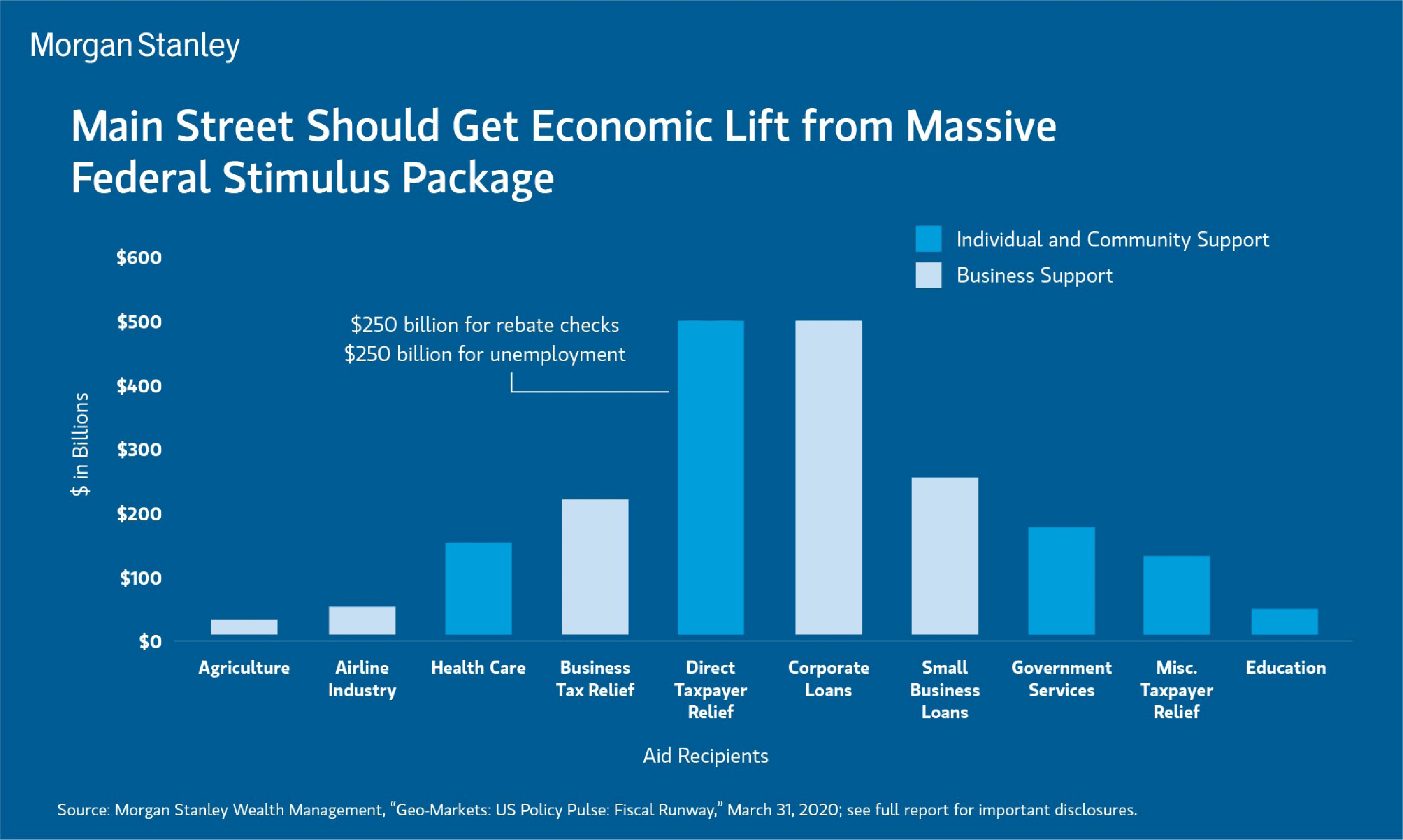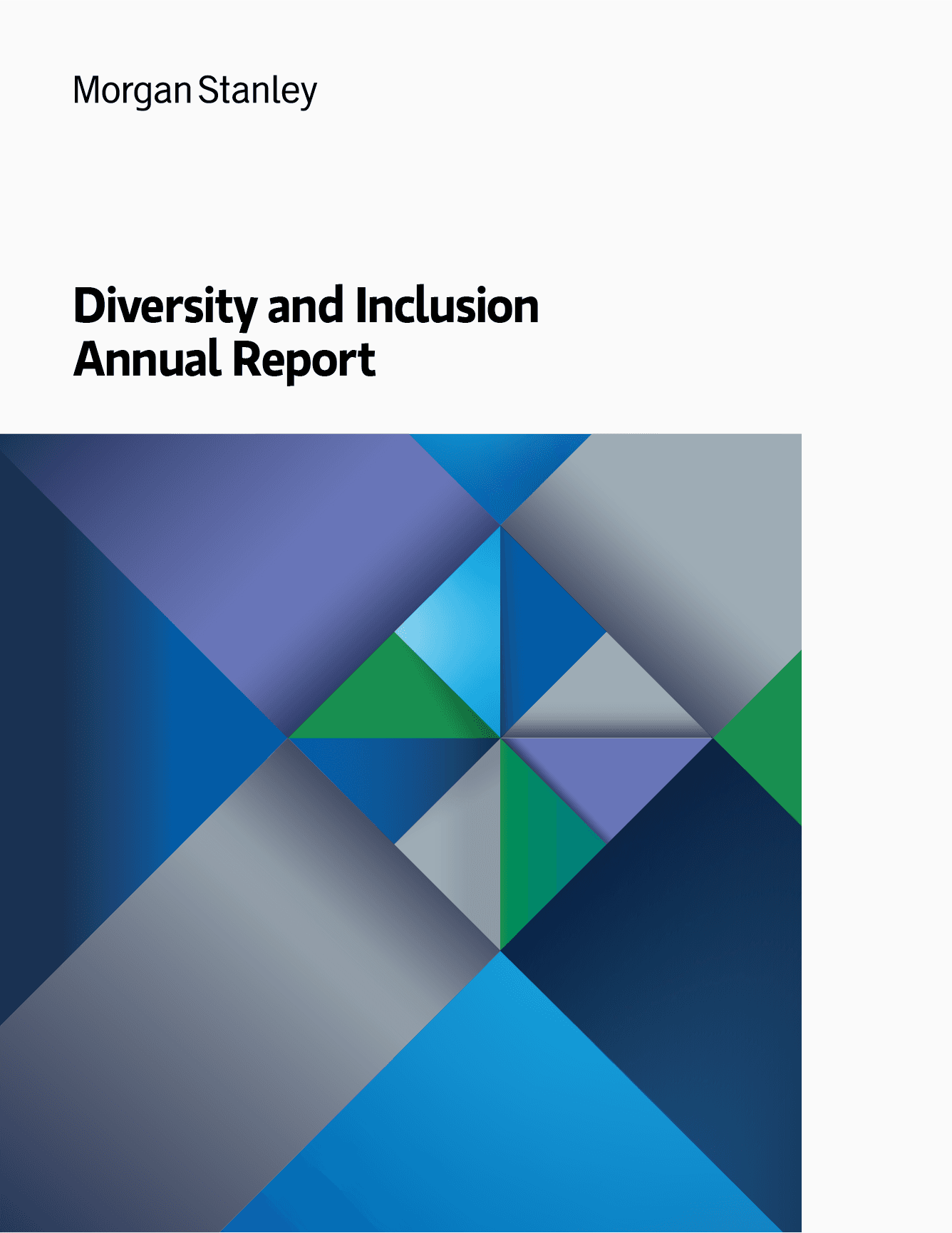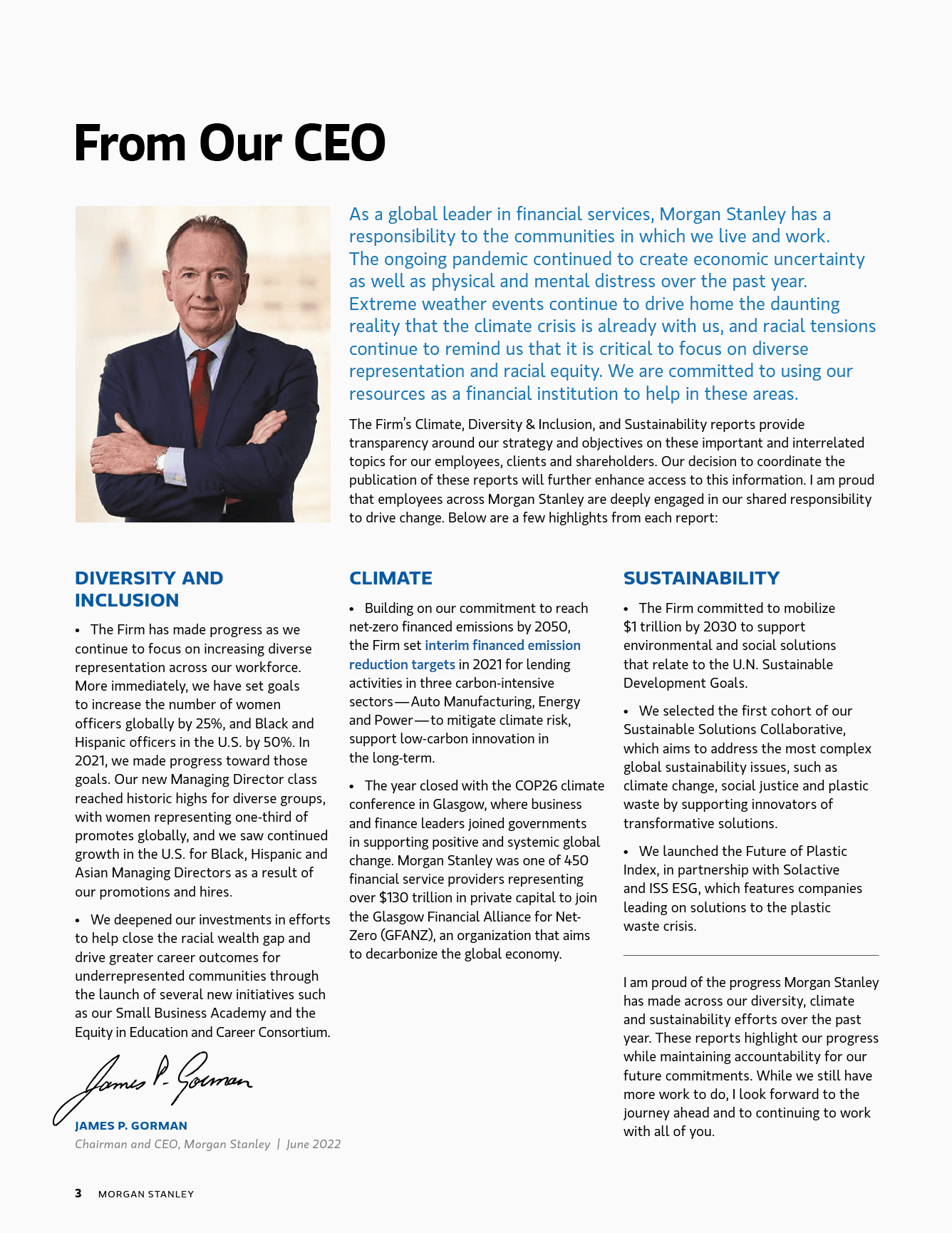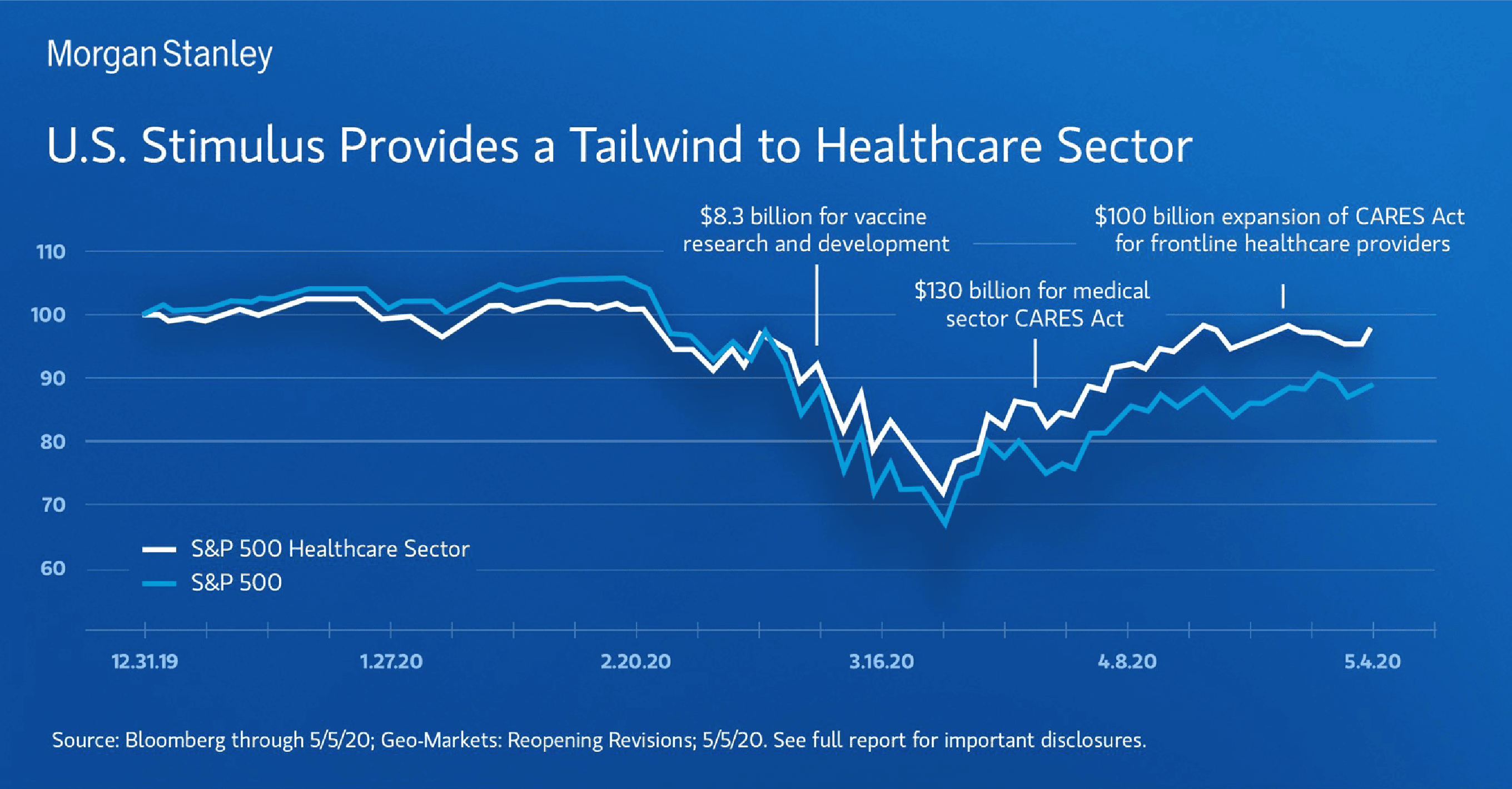
MS Gloriola
Client: Morgan Stanley
Realization: 2010
Custom modifications of several characters were created for the complete MS Gloriola type family, including a capital “M” specifically designed for the company name. A dedicated Extra Thin style was also developed for the typographic system, layout principles, and digital brand language.